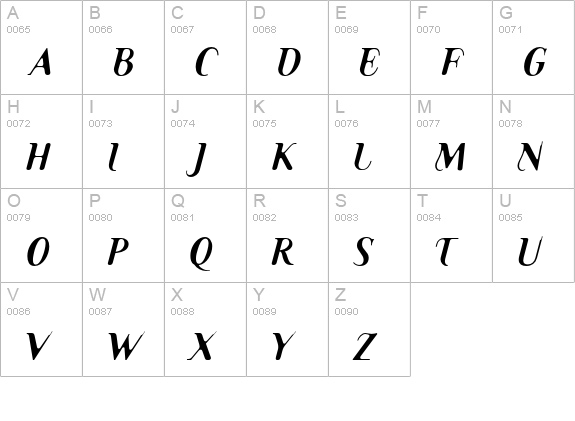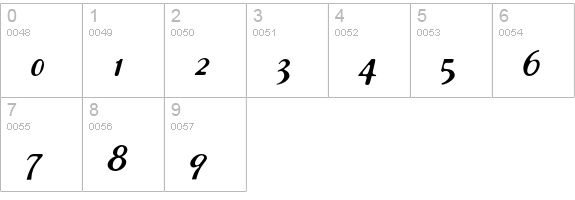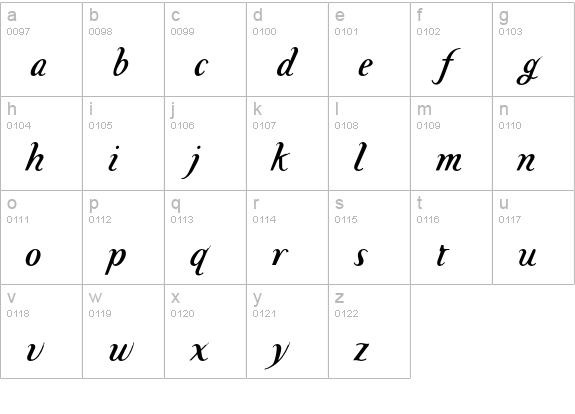
TemaCantante-BoldItalic is a dynamic and versatile font that combines boldness and elegance in a unique and captivating way. This font is perfect for those who want to make a statement with their designs, as it adds a touch of sophistication and modernity to any project. The bold and italicized characters of TemaCantante-BoldItalic exude confidence and strength, making it an ideal choice for headlines, logos, and branding materials. Its sleek and sleek design adds a touch of professionalism to any design, whether it's a website, a magazine layout, or a promotional flyer. What sets TemaCantante-BoldItalic apart is not only its stunning aesthetics, but also its availability as a free font. Yes, you read that right – this remarkable font is freely available to download at FontsMarket.com. This means that you can add this powerful tool to your font collection without any cost, allowing you to create stunning designs without breaking the bank. Whether you're a professional designer or a novice enthusiast, TemaCantante-BoldItalic will effortlessly elevate your projects to new heights. Its bold and italicized characters will grab attention and leave a lasting impression on your audience. So don't miss out on this incredible opportunity to enhance your designs with TemaCantante-BoldItalic. Download it for free at FontsMarket.com and unlock a world of possibilities for your creative endeavors.